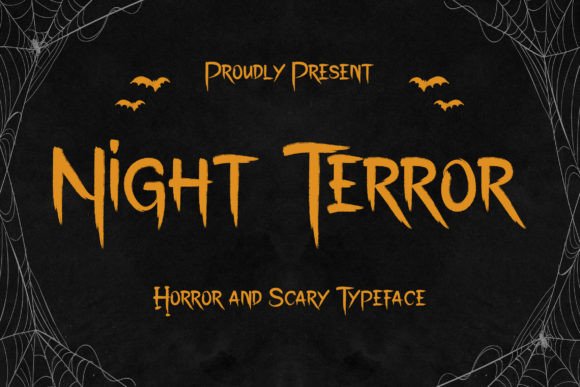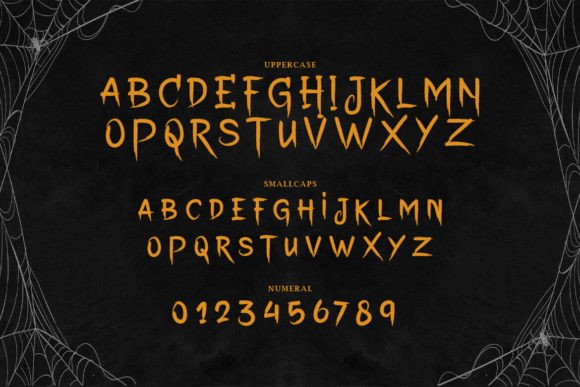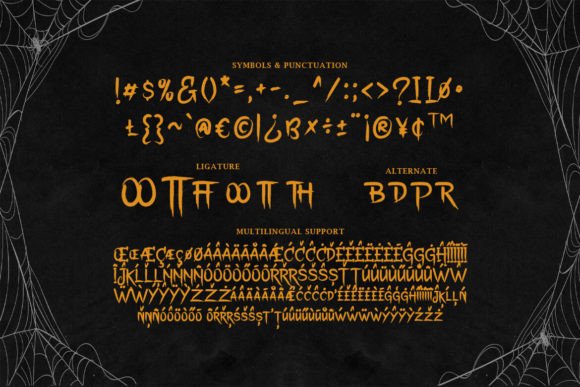
Night Terror Font: A Spine-Chilling Display Font for Horror Designs
About the Night Terror Font
Presenting Night Terror Font, a unique and stylish typeface that will make your work stand out. Enter the realm of darkness with “Night Terror” – a horror and scary typeface that will send shivers down your spine. Embrace the terror of “Night Terror” as it adds an unsettling atmosphere to your projects. Whether you’re creating bone-chilling logos, spine-tingling invitations, or haunting illustrations, this typeface will leave a lasting impression with its sinister and menacing style.
Night Terror excels in headline applications, short impactful phrases, and branding for projects related to horror, thriller, dark fantasy, or occult themes. Its sharp, angular forms create a strong visual presence ideal for posters, movie titles, and limited-edition packaging. Avoid using it for body text or extended reading; its aggressive style hinders readability in long passages.
The font’s personality is undeniably bold and menacing. To temper this intensity, pair it with a clean sans-serif like Open Sans for supporting text or a classic serif like Garamond for a touch of refined contrast. For a more modern feel, a geometric sans-serif such as Futura could create interesting tension.
Using Night Terror in UI projects is strongly discouraged due to its low legibility in small sizes. Its optimal application remains in projects where a striking, fear-inducing aesthetic takes precedence over extensive text.